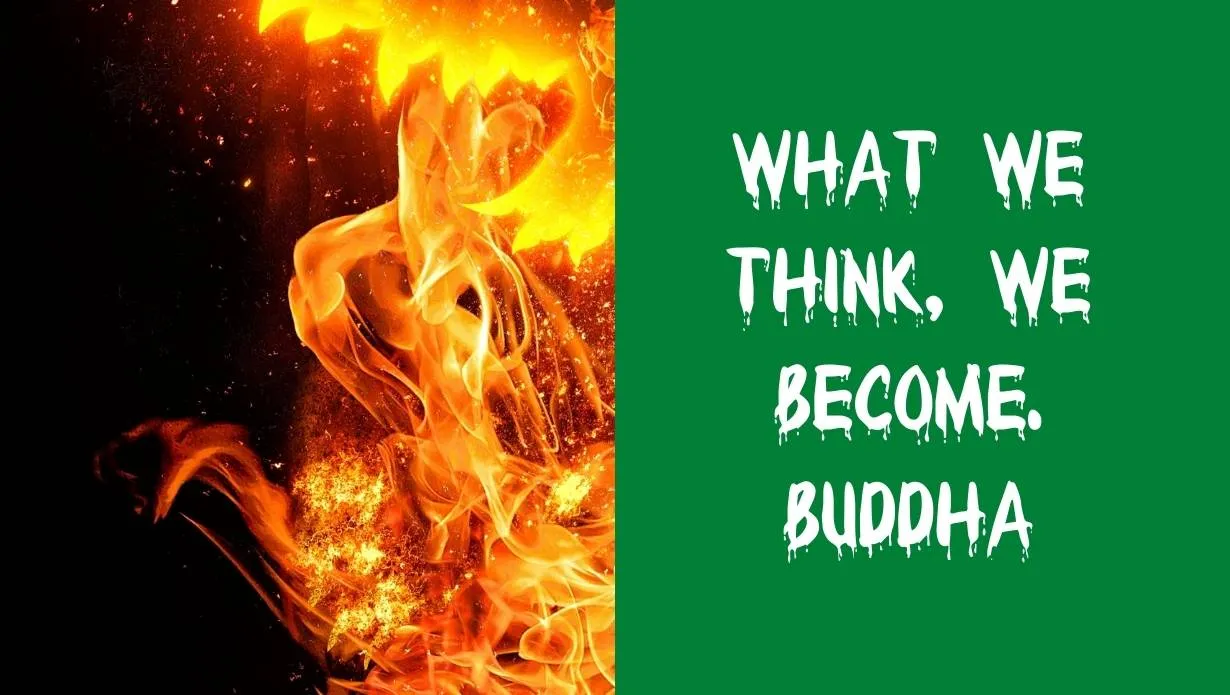
Bloody Font is a gothic typeface created by American typeface designer Jim Fordyce in 1999. The font was inspired by the work of early 20th-century German typeface designer Rudolf Koch. The bloody typeface is characterized by its sharp, angular lines and decorative details.
Use it for Halloween invitations, party flyers, or anything else that needs a bit of an eerie edge. Bloody typeface has a complete set of characters including uppercase, lowercase, numbers, punctuation, and international characters.
The bloody typeface is perfect for creating spooky, gothic designs. This typeface is similar to the rye font.